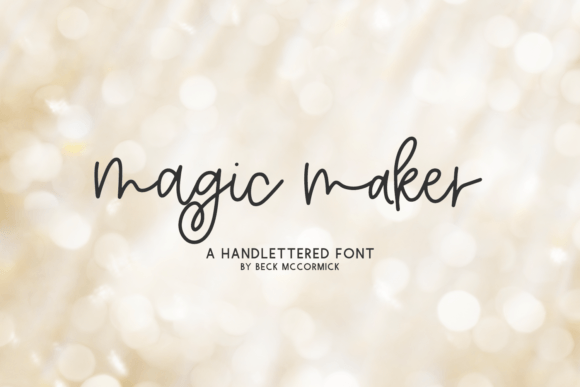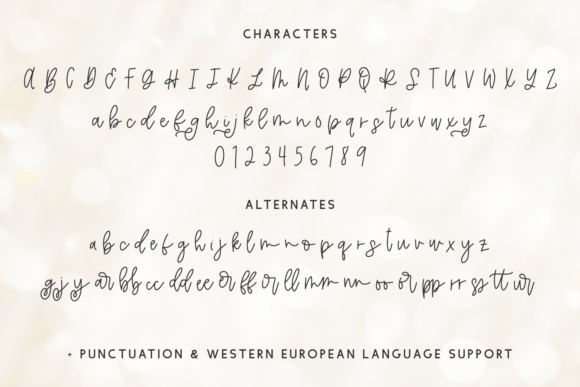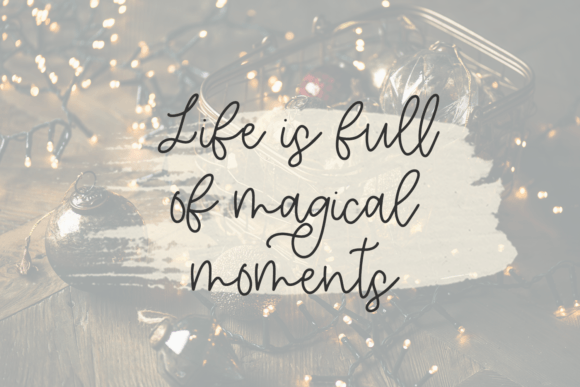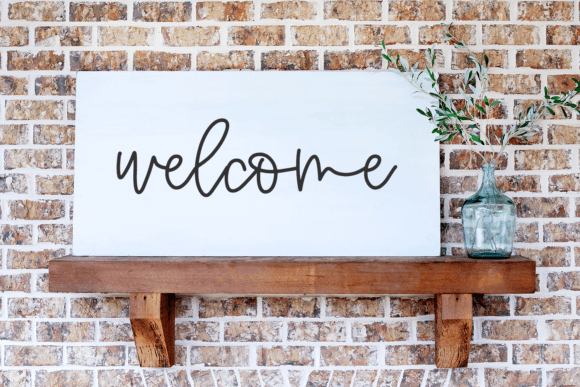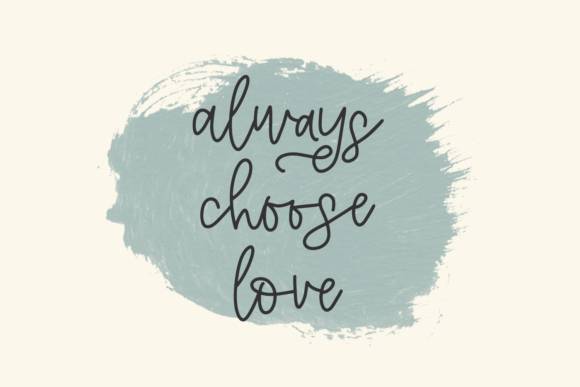
A Modern Calligraphy Font for Elegant Designs
Magic Maker is a beautiful modern calligraphy script font that adds a touch of magic to every project. With graceful curves, elegant swashes, and detailed letterforms, it instantly elevates your designs.
Its handwritten style feels personal, warm, and sophisticated all at once.
Perfect for Wedding Invitations
Planning a wedding? Magic Maker is an ideal font for invitations, save-the-date cards, and thank-you notes.
Its flowing letters create a romantic feel that fits perfectly with wedding themes. Use it to set the tone for your big day and make your stationery look stunning and unique.
Pair it with soft pastels or metallic accents to create an elegant and cohesive look.
Great for Branding and Logos
Magic Maker is also a wonderful choice for branding projects. Its sophisticated script style works beautifully for logos, business cards, and product packaging.
Whether you’re branding a boutique, a beauty line, or a creative studio, this font helps you create a polished and memorable identity.
The font’s versatile letterforms adapt to many styles, from modern minimalism to classic elegance.
Stunning Social Media Graphics
If you create social media content, Magic Maker can help your posts stand out. Use it for Instagram quotes, Pinterest pins, or Facebook banners.
The stylish calligraphy adds personality and visual interest, making your designs more engaging.
Try pairing it with clean photography and neutral colors to let the font’s details shine.
Extensive Glyphs and Ligatures
One of Magic Maker’s best features is its rich set of glyphs, ligatures, and alternate characters.
Experiment with different combinations to create beautiful, flowing words that feel truly special.
Easy to Use and Highly Versatile
Magic Maker is designed to be both elegant and easy to work with.
Its clean strokes maintain their detail at any size, so whether you’re creating a small label or a large poster, your text stays crisp and legible.
The font includes uppercase and lowercase letters, numbers, punctuation, and decorative swashes.
Tips for Beautiful Results
For the best impact, use Magic Maker in larger sizes to showcase its intricate details.
Keep your backgrounds simple to let the font’s beauty stand out. Soft, muted color palettes complement its romantic style.
Mix Magic Maker with a clean sans-serif font to balance elegance with readability in longer texts.
Bring Magic to Your Next Project
Magic Maker isn’t just a font—it’s a way to add charm, style, and a touch of enchantment to any design.
From wedding invitations to brand identities, this modern calligraphy script helps your ideas come to life with grace and elegance.
Discover how Magic Maker can transform your work and make every project unforgettable.